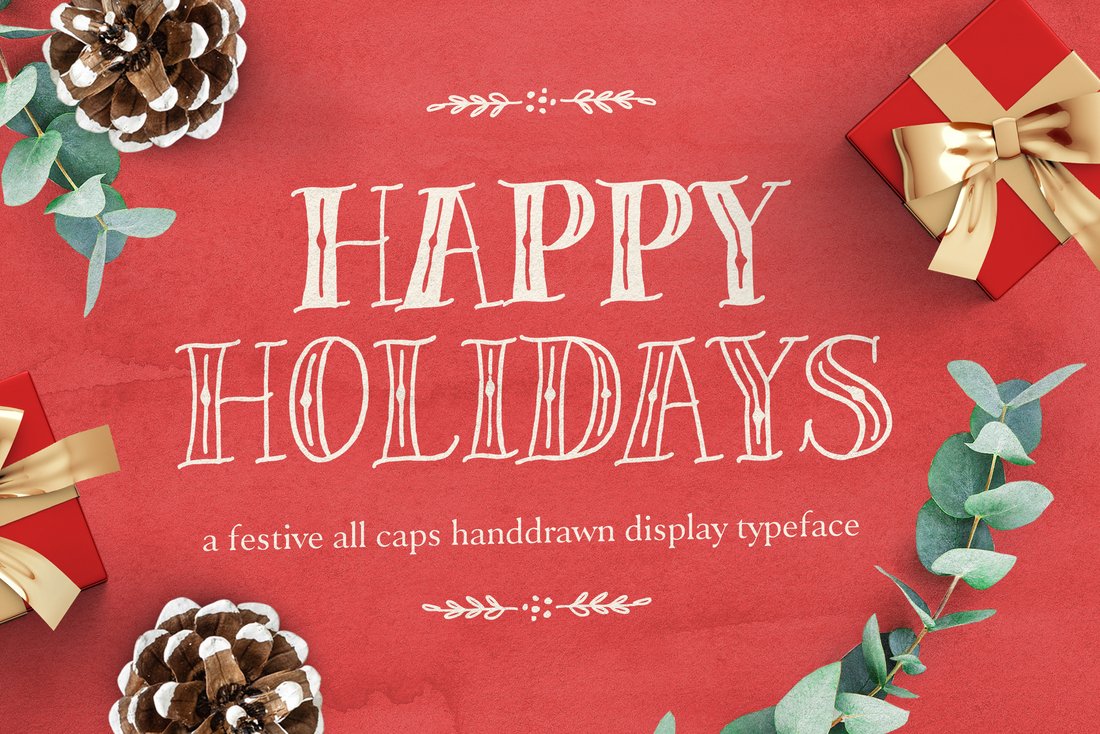
Happy Holidays Display Font
Say hello to Happy Holidays - an all-caps Display font, in two styles Outline and Solid. It has Opentype kerning included to make sure the letters are spaced properly as you type.
Some doodles are built into the font for you, by typing out: @#$%*()-+= and :